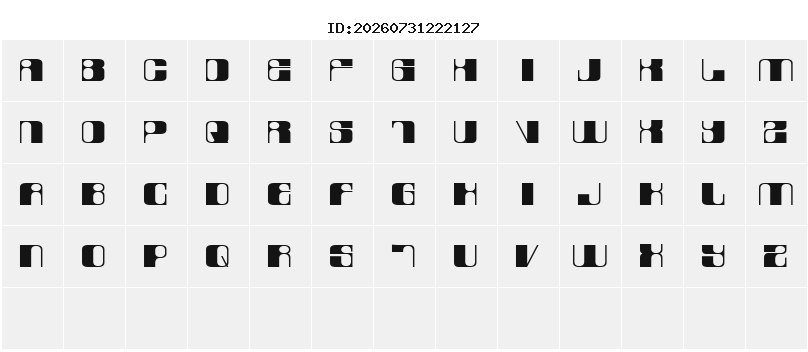
• Font Name: LaurelOrHardy
• Designer: Frode Nordb¿ / Norwegian Ink / Design for Dough
• Description: Originally made as a logo-type for a window-print (www.norwegianink.com) Please send me a notification at frode@norwegianink.com if you decide to use the font; i would love to see it applied somewhere else.